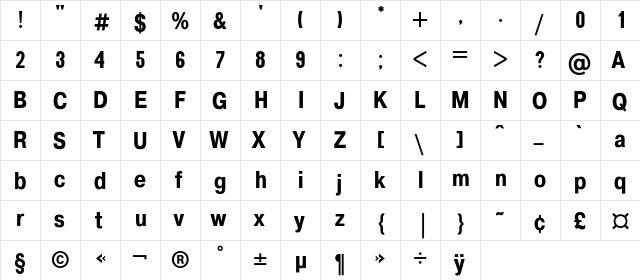
MukiGroteski Regular
Design Context for MukiGroteski Typeface
MukiGroteski has the quiet confidence of well-executed sans-serif typography: versatile, unobtrusive, and dependable at any size.
Font Pairing: Works well alongside a characterful serif or display font that can carry the expressive load while MukiGroteski handles the functional copy.
Pro Tip: Use MukiGroteski for UI labels, navigation, and short-form body copy where clean legibility is the priority.